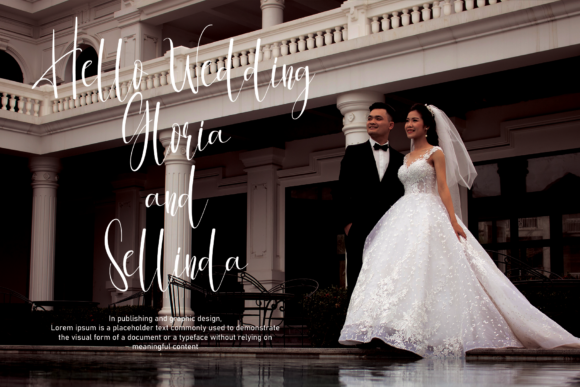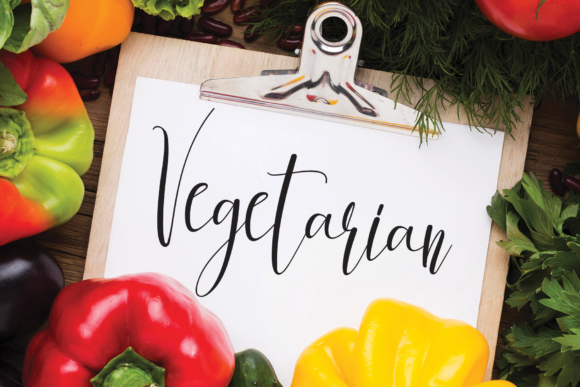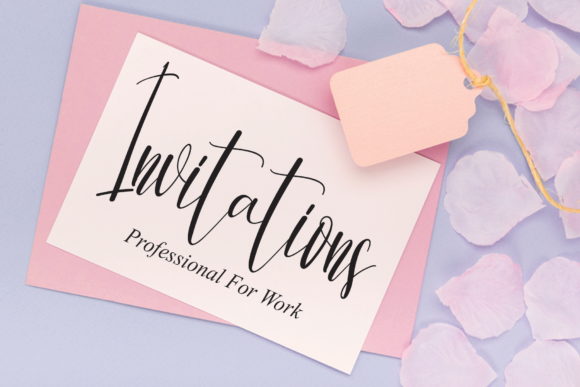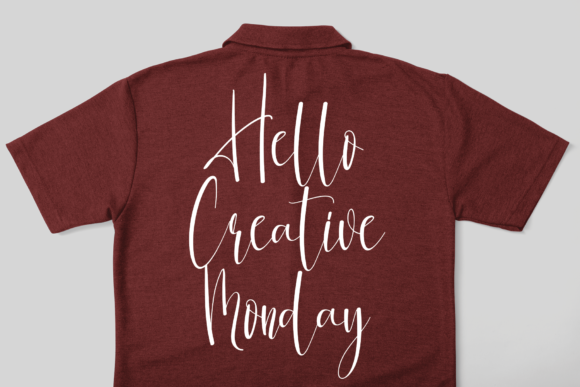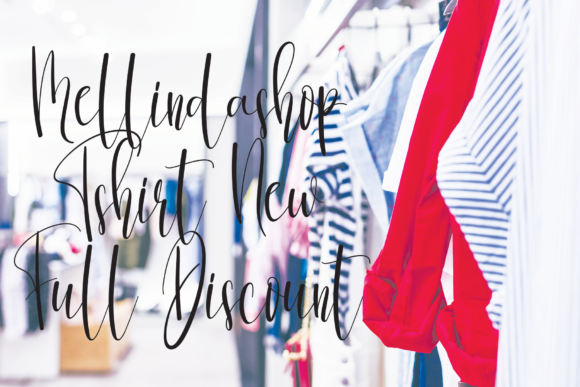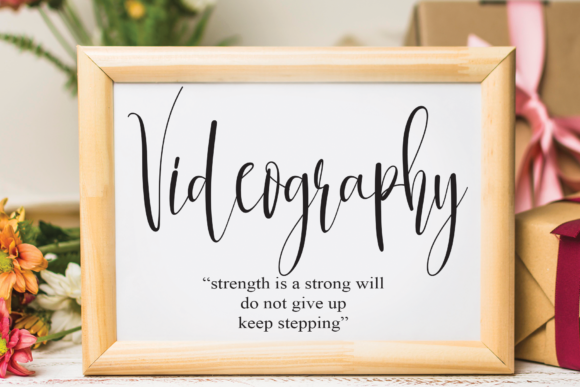
Gracelove Font: Elevate Your Designs with Elegance and Sophistication
In the world of typography, a font can make or break a design. For designers and crafters, finding the perfect font that embodies elegance, sophistication, and style can be a daunting task. However, if you’re looking for a beautiful, well-balanced, and stylish script font, look no further than Gracelove Font. With its smooth curves and refined aesthetic, Gracelove is the perfect addition to any fashion branding or editorial design project.
The Characteristics of Gracelove Font
Gracelove Font is a stunning script font that boasts a range of characteristics that make it stand out from the crowd. Some of its key features include:
- Smooth Curves: Gracelove’s curves are smooth, flowing, and expertly crafted to create a sense of fluidity and movement.
- Well-Balanced: The font is carefully balanced to ensure that it is visually appealing and easy to read, making it perfect for a range of design applications.
- Stylish: Gracelove is a stylish font that exudes elegance and sophistication, making it perfect for high-end fashion branding and editorial designs.
Perfect for Fashion Branding and Editorial Designs
Gracelove Font is specifically designed with fashion branding and editorial designs in mind. Its elegant and refined aesthetic makes it perfect for:
- Fashion Logos: Use Gracelove to create stunning fashion logos that exude style and sophistication.
- Editorial Designs: Add Gracelove to your editorial designs, such as magazines, newspapers, and blogs, to give them a touch of elegance and refinement.
- Packaging Design: Use Gracelove to create beautiful packaging designs that stand out on store shelves.
Why Choose Gracelove Font?
With so many fonts to choose from, why should you choose Gracelove Font? Here are just a few reasons:
- Unique Aesthetic: Gracelove has a unique and distinctive aesthetic that will set your designs apart from the crowd.
Tips for Using Gracelove Font
To get the most out of Gracelove Font, here are a few tips:
- Use it Sparingly: Use Gracelove sparingly to create a sense of drama and impact.
- Pair it with Other Fonts: Pair Gracelove with other fonts to create a unique and visually appealing typography combination.
In conclusion, Gracelove Font is a beautiful, well-balanced, and stylish script font that is perfect for fashion branding and editorial designs. With its smooth curves and refined aesthetic, Gracelove is sure to elevate your designs and add a touch of elegance and sophistication. Whether you’re a designer or crafter, Gracelove is a must-have font that will deliver exceptional results. So why wait? Add Gracelove to your design arsenal today and experience the difference for yourself.